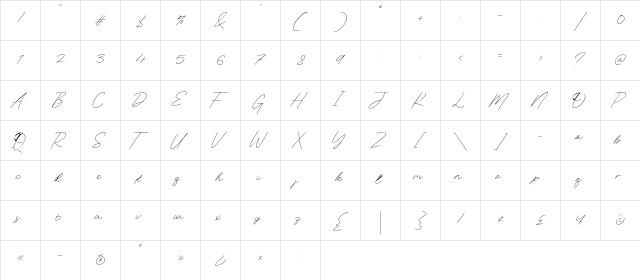
Gingle Snowland Regular
| Designer | Balpirick Studio |
Design Context for Gingle Snowland Typeface
Gingle Snowland is a composed and adaptable typeface that performs quietly and consistently across a wide range of design contexts.